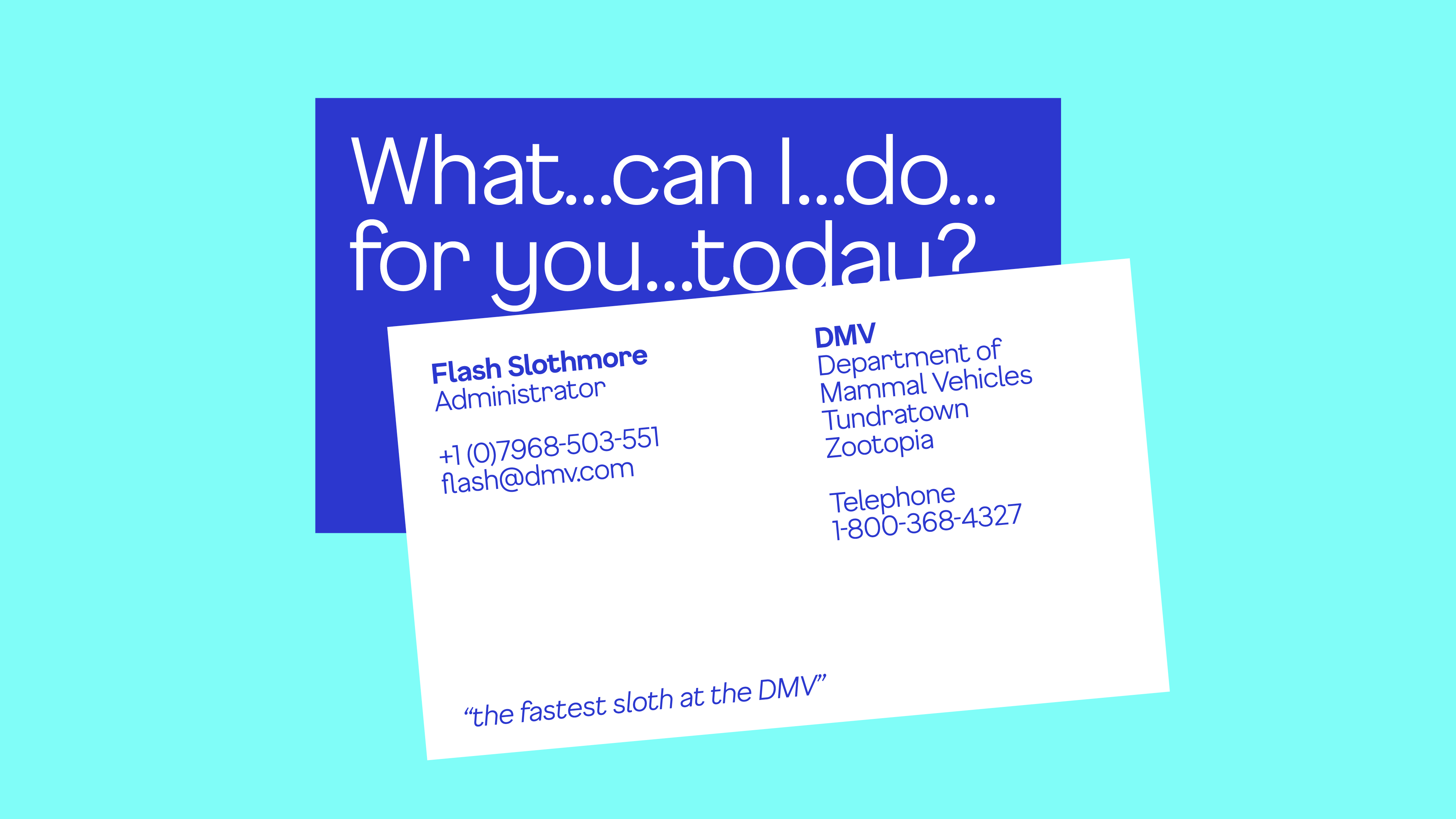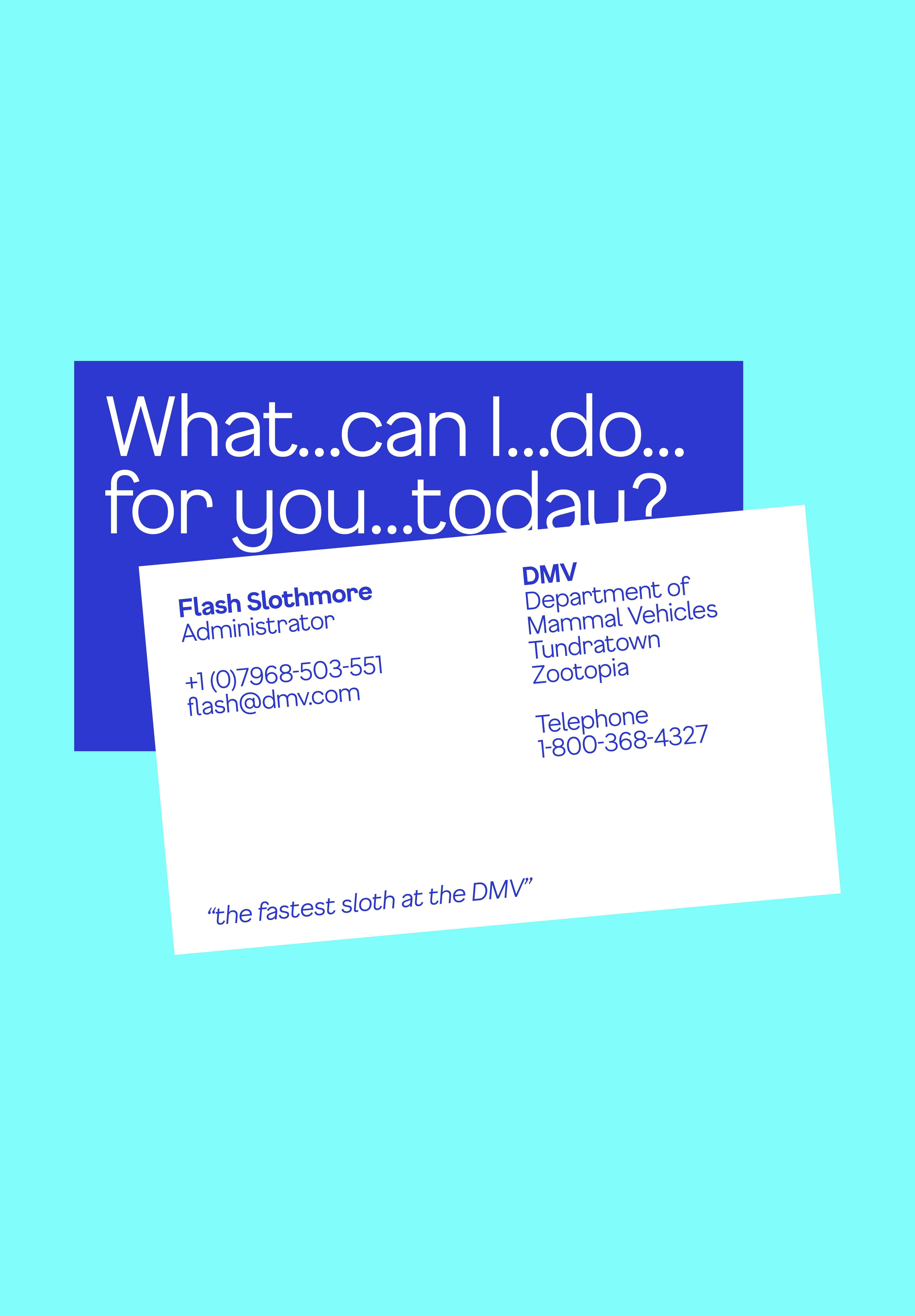
F37 Gruffy®
With its upward curly tails, slightly over-exaggerated curves and angled terminals, F37 Gruffy is fun, friendly and distinctly modern.
Over-exaggerated curves